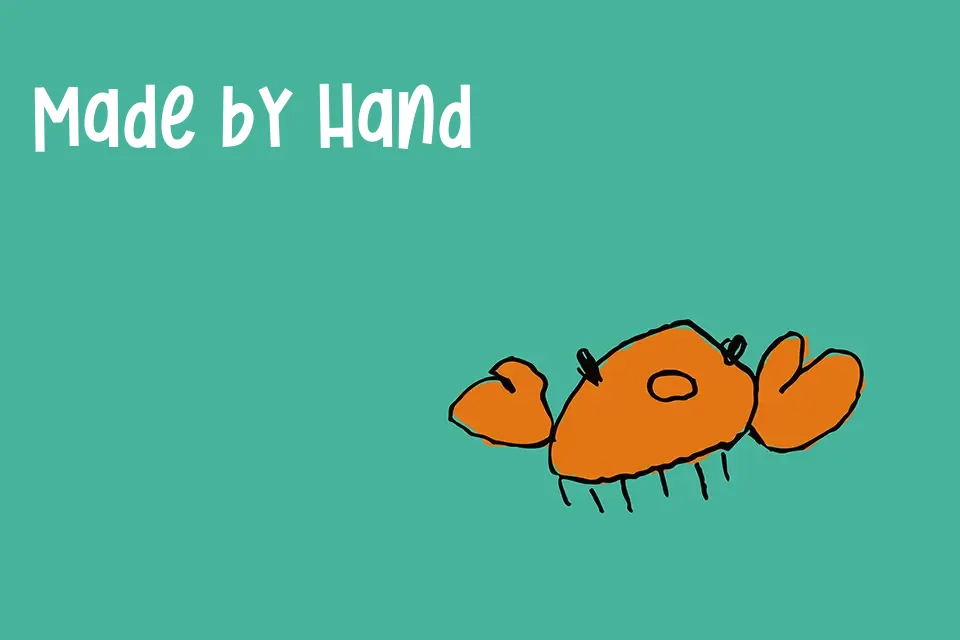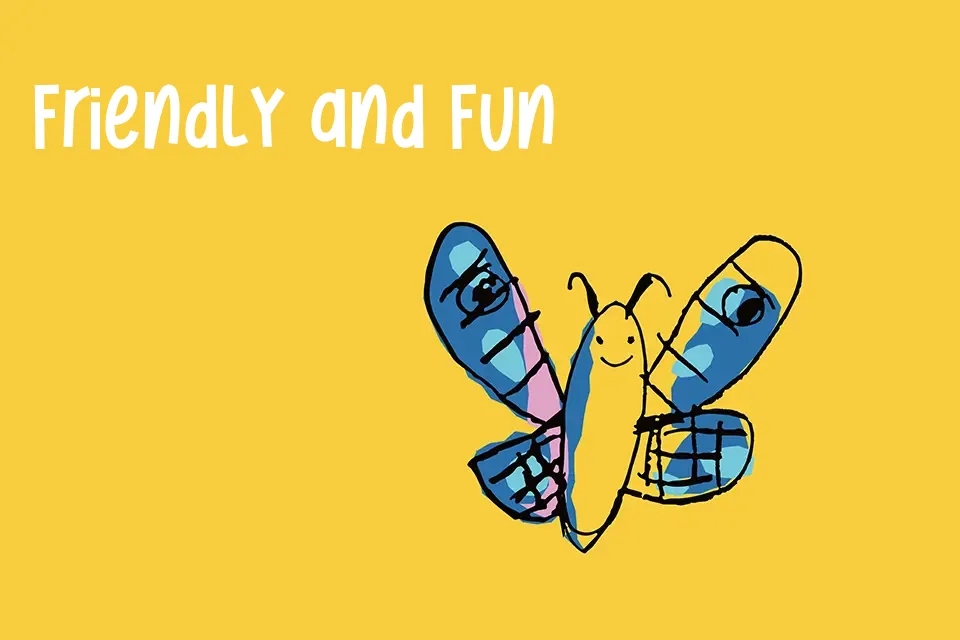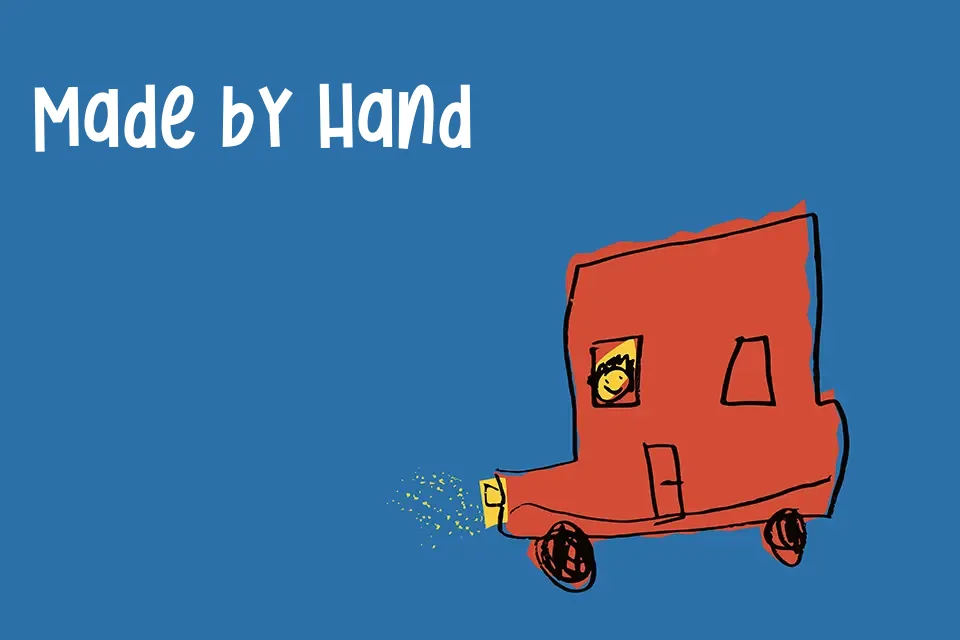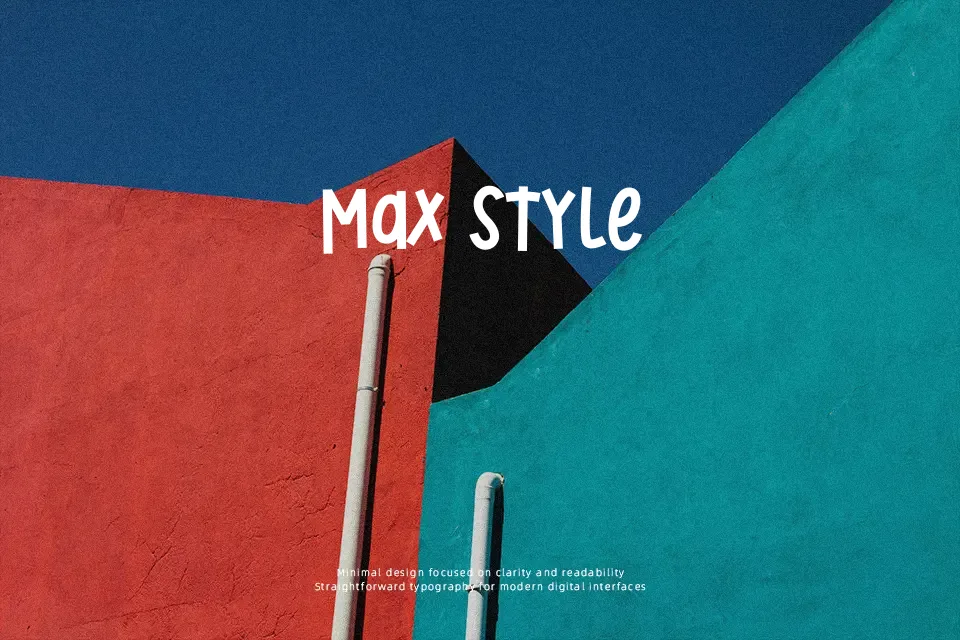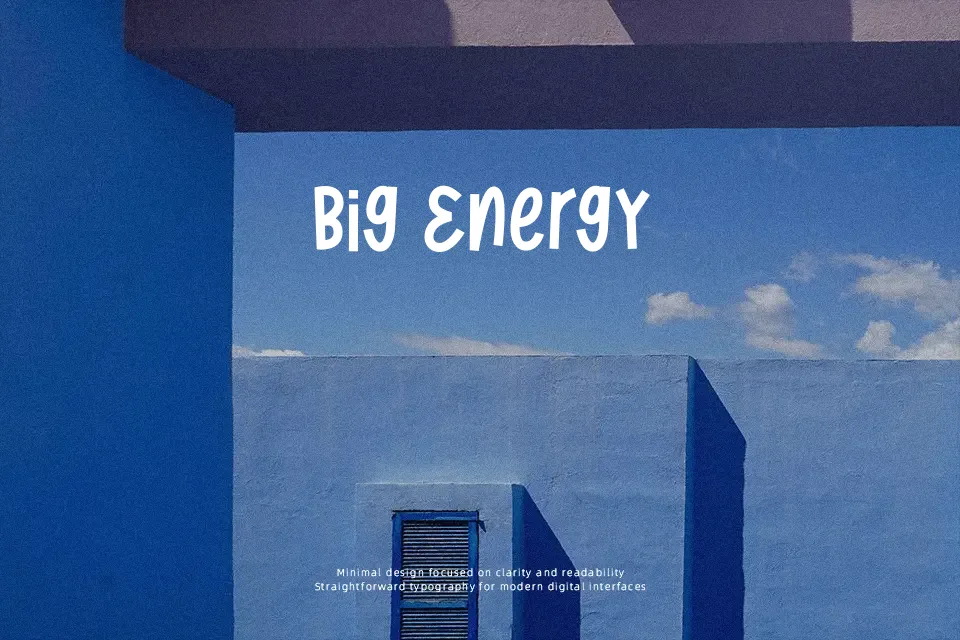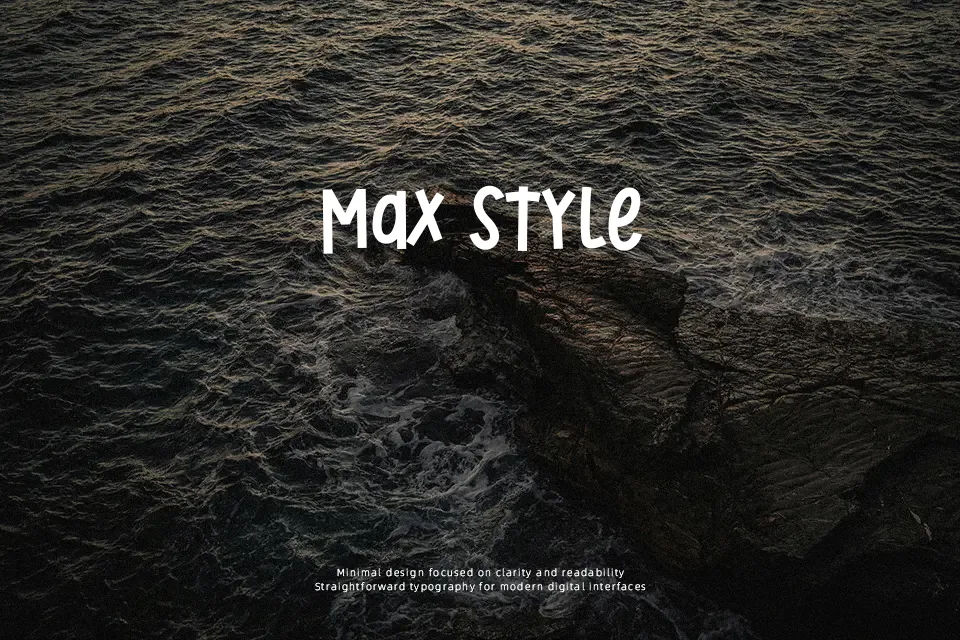
Twenties Fashion Font
Twenties Fashion Font introduces an informal handwritten character through slightly irregular proportions, clean monoline weight, and gently rounded terminals. The letterforms maintain distinct outlines with comfortable interior spacing, making titles readable across merchandise prints, playful poster headings, and casual packaging. However, prolonged reading reveals that uneven baselines and casual stroke variations create visual fatigue when applied to dense paragraphs. The typeface functions best as an expressive headline choice where its breezy, relaxed personality can establish an immediate human connection. For compact captions or technical documents, sharper geometric styles provide significantly better structural discipline.
Best For: casual apparel graphics, playful poster headlines, greeting card titles, artisanal product packaging
Not Ideal For: dense editorial paragraphs, technical documentation, corporate financial reports, small interface captions
Perfect for headline, kids, and packaging, with a creative and cartoon style.